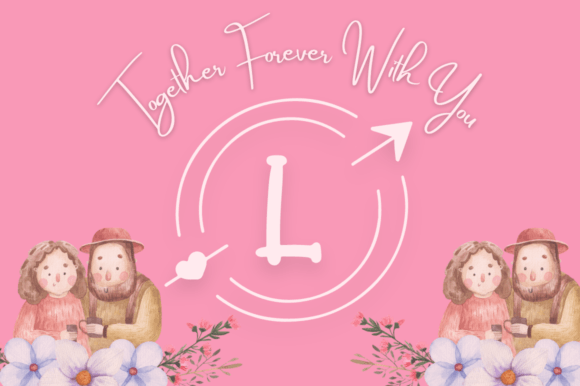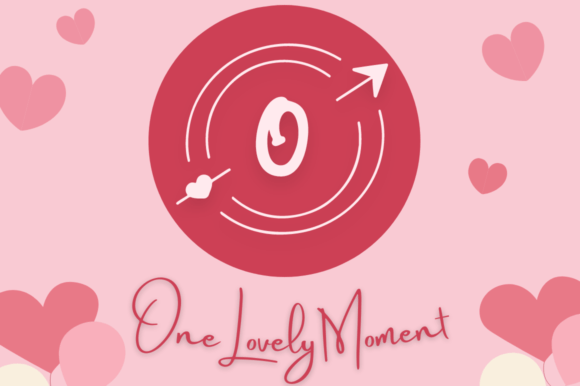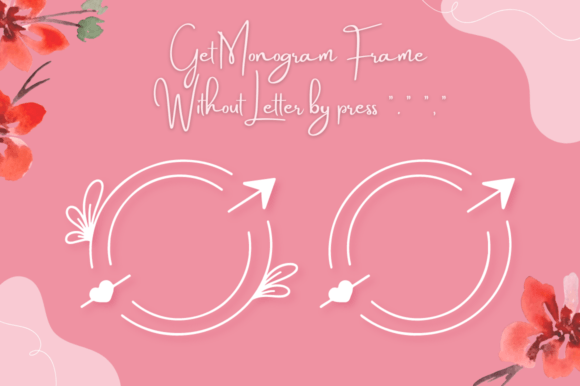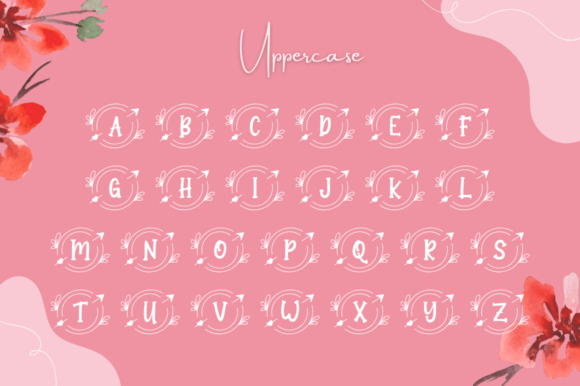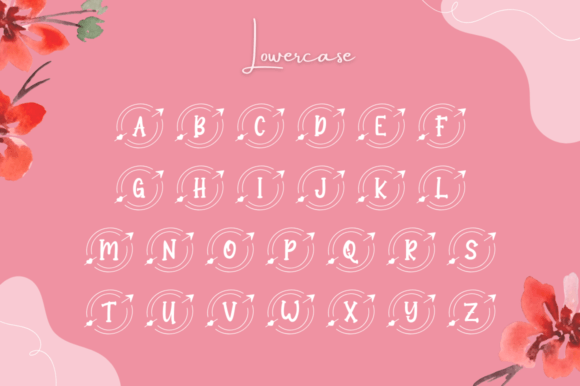
Introduction to Panah Valentine Monogram Font
Have you ever been brainstorming ideas for a creative project, only to be struck by the perfect combination of design and sentiment? That’s exactly what happens when you discover the Panah Valentine Monogram Font – a charming, whimsical font that’s sure to capture the essence of your special occasions. Whether you’re designing wedding cards, logos, or social media posts, this font is the perfect addition to elevate your work.
As a designer, you know the importance of having high-quality design resources at your fingertips. The Panah Valentine Monogram Font delivers, with its two styles and transparent background making it a versatile asset for any project. And the best part? It’s available for free download, making it an invaluable resource for designers on a budget.
With its endearing and delicate design, the Panah Valentine Monogram Font is a must-have for any designer looking to add a touch of romance and elegance to their work.
Key Features of Panah Valentine Monogram Font
- Unique Monogram Design: The Panah Valentine Monogram Font offers a distinctive and creative way to express love and affection, making it perfect for any romantic project or design.
- High-Quality Graphics: This font is designed with high-quality graphics, ensuring a professional and polished look for any design project.
- Transparent Background: The Panah Valentine Monogram Font comes with a transparent background, allowing for easy integration with any design or image.
- Resolution: The font is designed at a high resolution of 300 DPI, making it suitable for use in large-scale designs and prints.
- Design Resource: The Panah Valentine Monogram Font is an excellent design resource for anyone working on a romantic or creative project, offering a unique and eye-catching way to express oneself.
Honest Review: Panah Valentine Monogram Font
As a designer, I’m always on the lookout for unique and high-quality design resources to elevate my creative projects. The Panah Valentine Monogram Font is a recent discovery that caught my attention, and I’m excited to share my thoughts on it.
- High-quality design: The font is beautifully crafted with intricate details and a romantic touch, perfect for adding a personal touch to wedding invitations, valentines, and other special occasions.
- Transparent background: The font comes with a transparent background, allowing for seamless integration with any design element.
- Limited characters: The font only includes a limited set of characters, which may not be suitable for extensive text-based projects.
- No bold or italic styles: The font is only available in regular style, which may limit its use in certain design applications.
Overall, I’m impressed with the Panah Valentine Monogram Font’s unique design and high-quality craftsmanship. While it has some limitations, it’s an excellent resource for designers looking to add a touch of romance to their creative projects.
Use the Panah Valentine Monogram Font in conjunction with other design resources, such as illustrations or graphics, to create a unique and eye-catching design. Experiment with different font sizes, colors, and styles to get the most out of the font.
The Panah Valentine Monogram Font is ideal for use in creative projects, such as wedding invitations, Valentine’s Day cards, and other romantic designs. It’s also a great resource for designers who want to create high-quality, professional-looking designs with a transparent background.